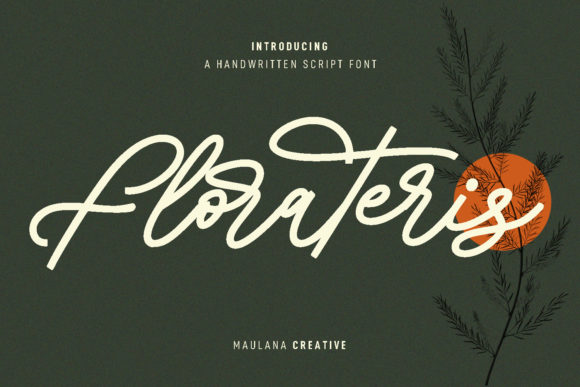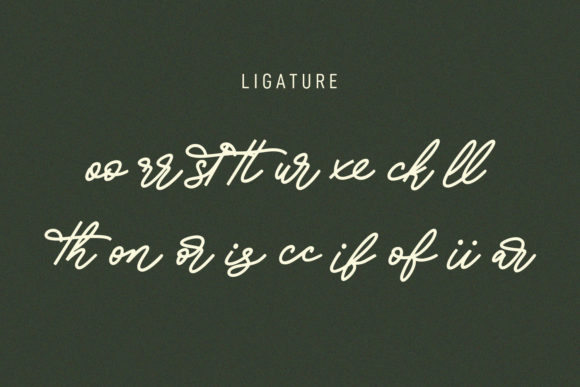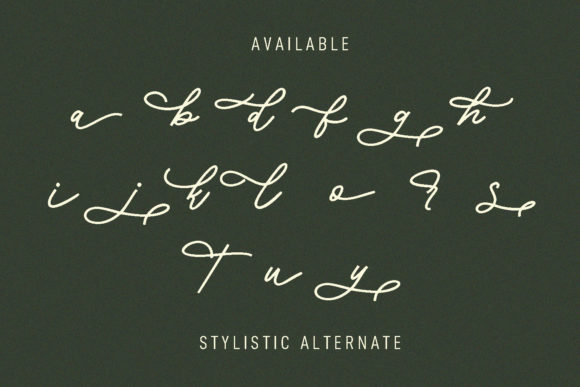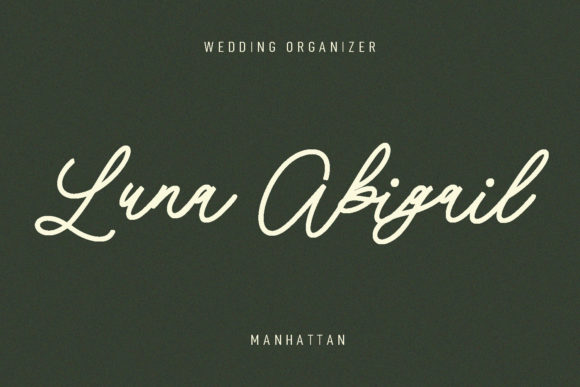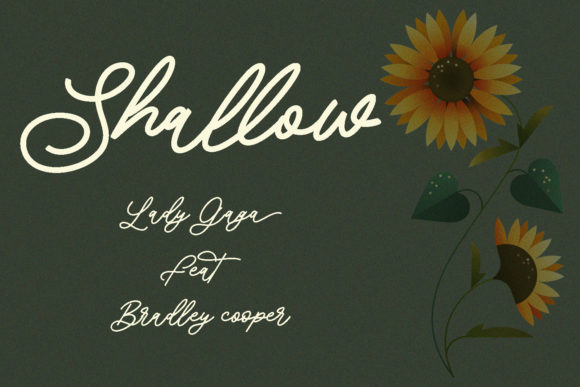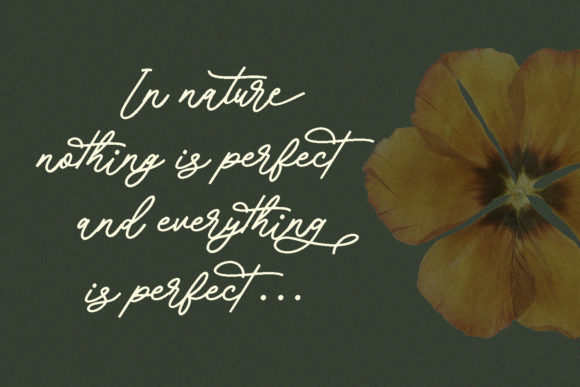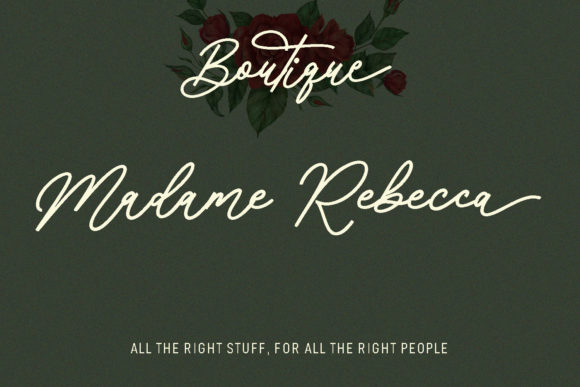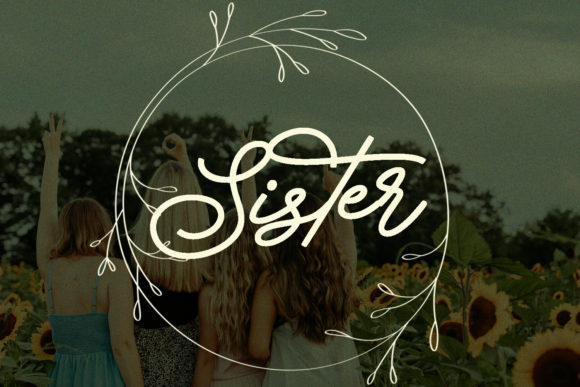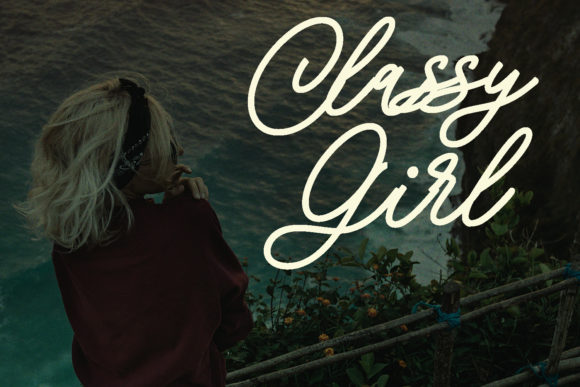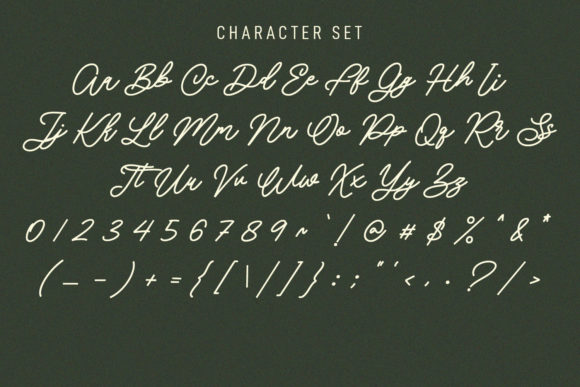
Florateris Script Font
About Florateris Script Font
“Florateris” is a sophisticated handwritten and cursive script font that combines elegance with playful elements. The font’s medium sharp edges and consistent strokes contribute to its refined appearance, while its fun characters, ligatures, and stylistic alternates add a touch of creativity and versatility.
This font’s design is well-suited for various purposes, making it a great choice for logo design, social media graphics, movie titles, book titles, short and long text passages, and even as secondary text alongside a sans serif or serif font. Its adaptability and range of features make it suitable for a wide array of design projects.
The medium sharp edges and consistent strokes lend “Florateris” a sense of balance and visual appeal. The fun characters and stylistic alternates allow for creative customization, enabling you to tailor the font to suit your specific design needs.
In summary, “Florateris” is more than just a font—it’s a creative asset that brings elegance and playfulness to your ideas. Its combination of features, including sharp edges, consistent strokes, and creative characters, makes it a valuable tool for designers striving to create stunning and versatile work that leaves a lasting impression.